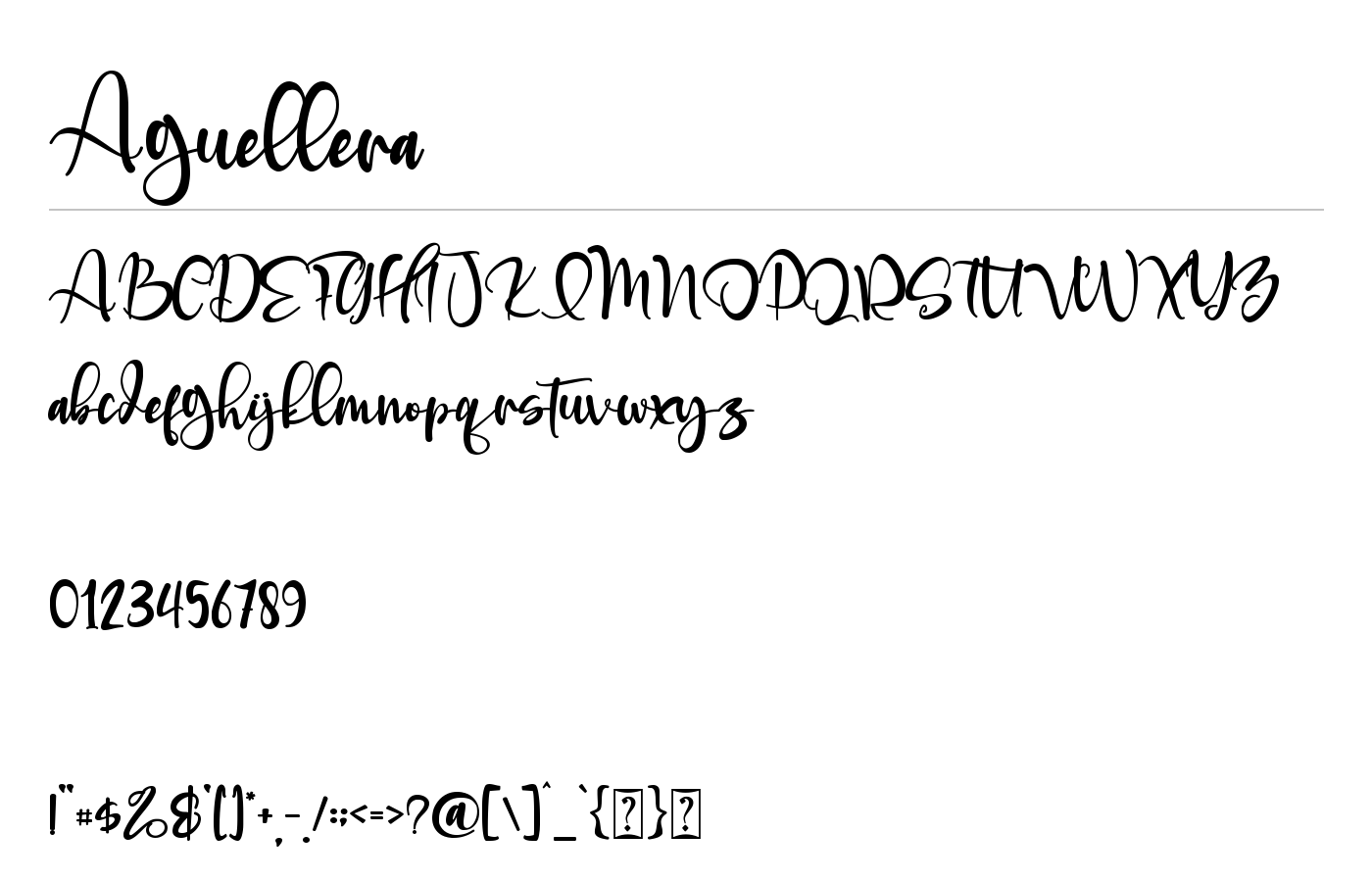
Aguellera is a lively script font that features elegant, flowing strokes with a hand-lettered feel. Its medium weight and smooth, connected letterforms create a playful yet refined personality, making it perfect for creative branding, invitations, and stylish headlines. This font adds a personal, artistic touch to designs that aim to feel warm and approachable.
Aguellera Font
About Aguellera Font